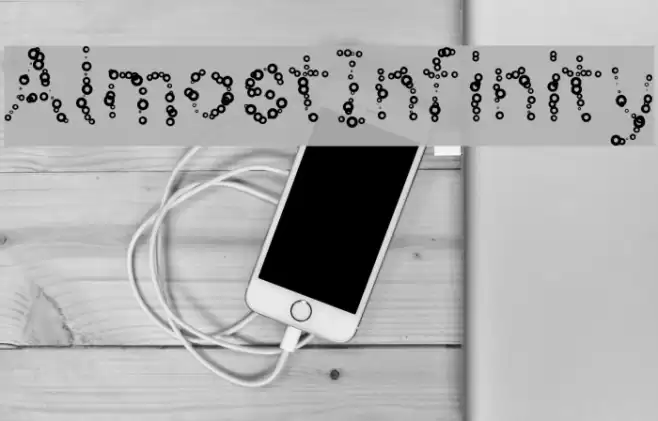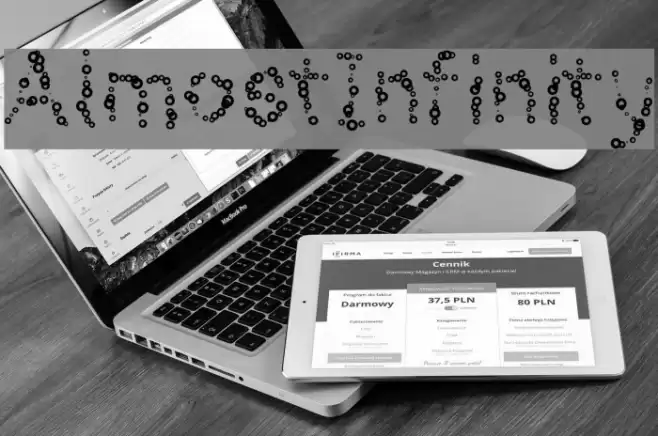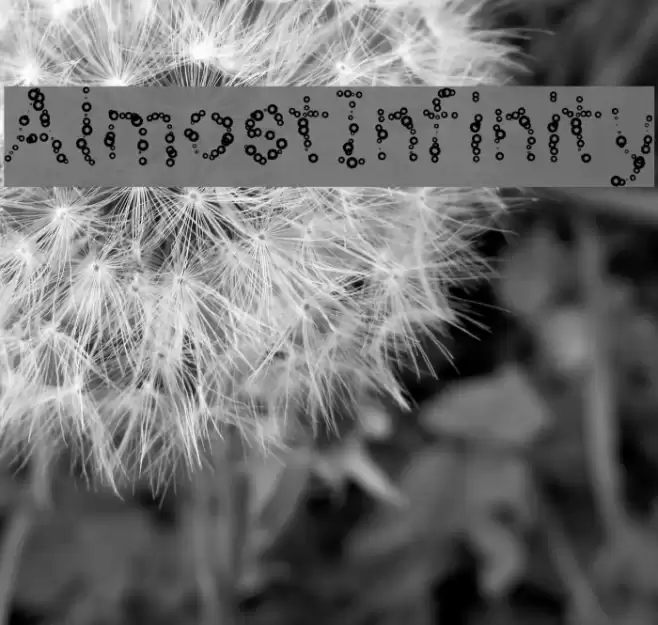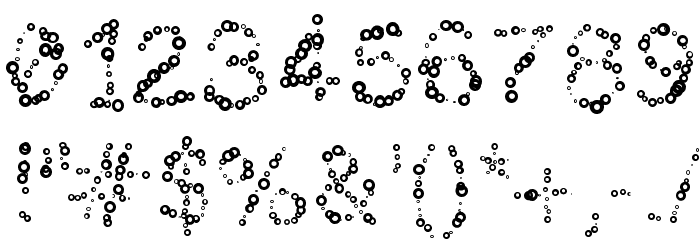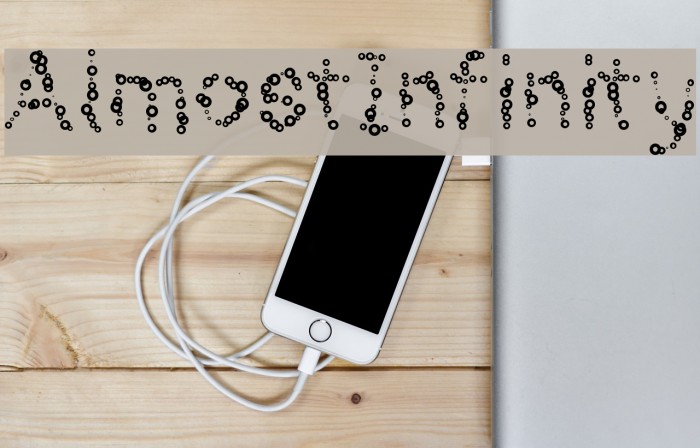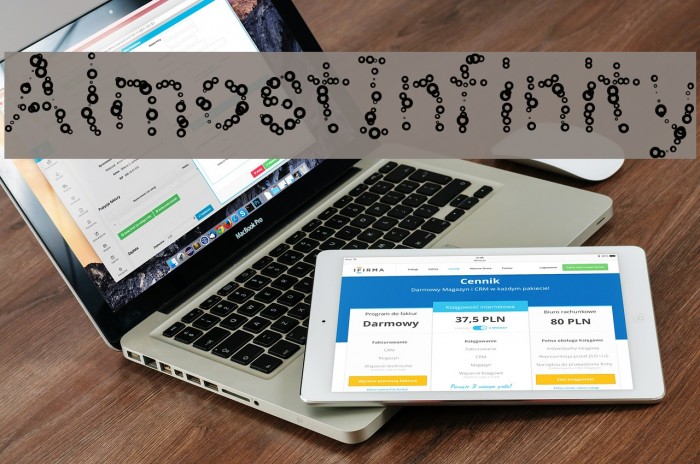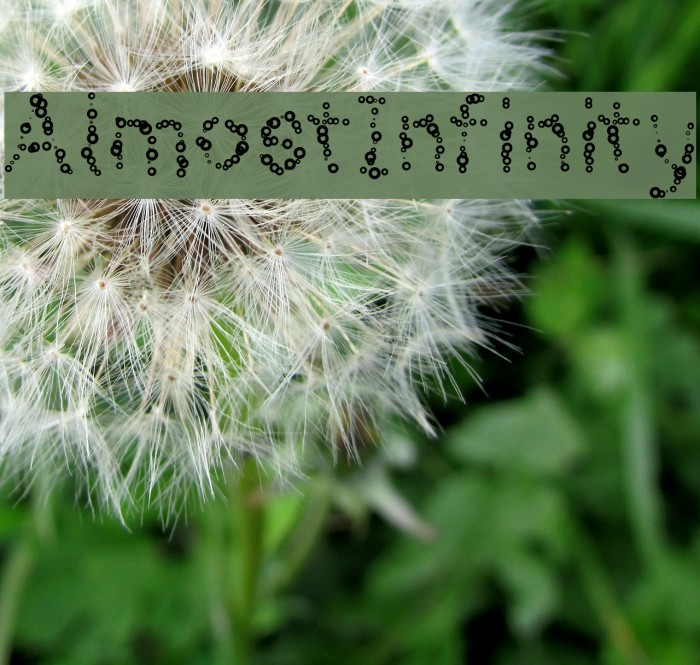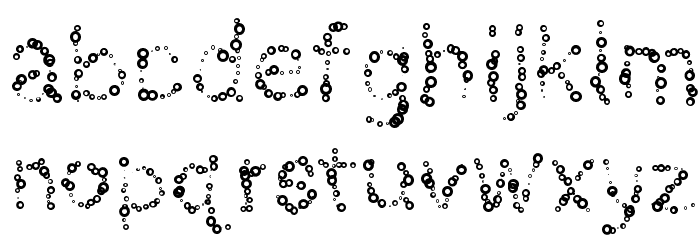
AlmostInfinity Font
AlmostInfinity Description
This font features a unique and playful design composed of numerous small circles forming each character. The circles vary in size, creating a textured and dynamic appearance. The overall look is whimsical and artistic, making it stand out from traditional fonts. Each letter and number is crafted with a sense of movement and fluidity, as if they are bubbling or fizzing. The font maintains a consistent style across uppercase, lowercase, numbers, and special characters, ensuring a cohesive look. Its decorative nature makes it suitable for creative and informal projects.
A playful, circle-based decorative font with a whimsical and artistic style from Uncategorized fonts.
- Proposed Projects: Ideal for creative projects such as children's books, playful branding, party invitations, and artistic posters.
- Use Case: Logos, Posters, Invitations